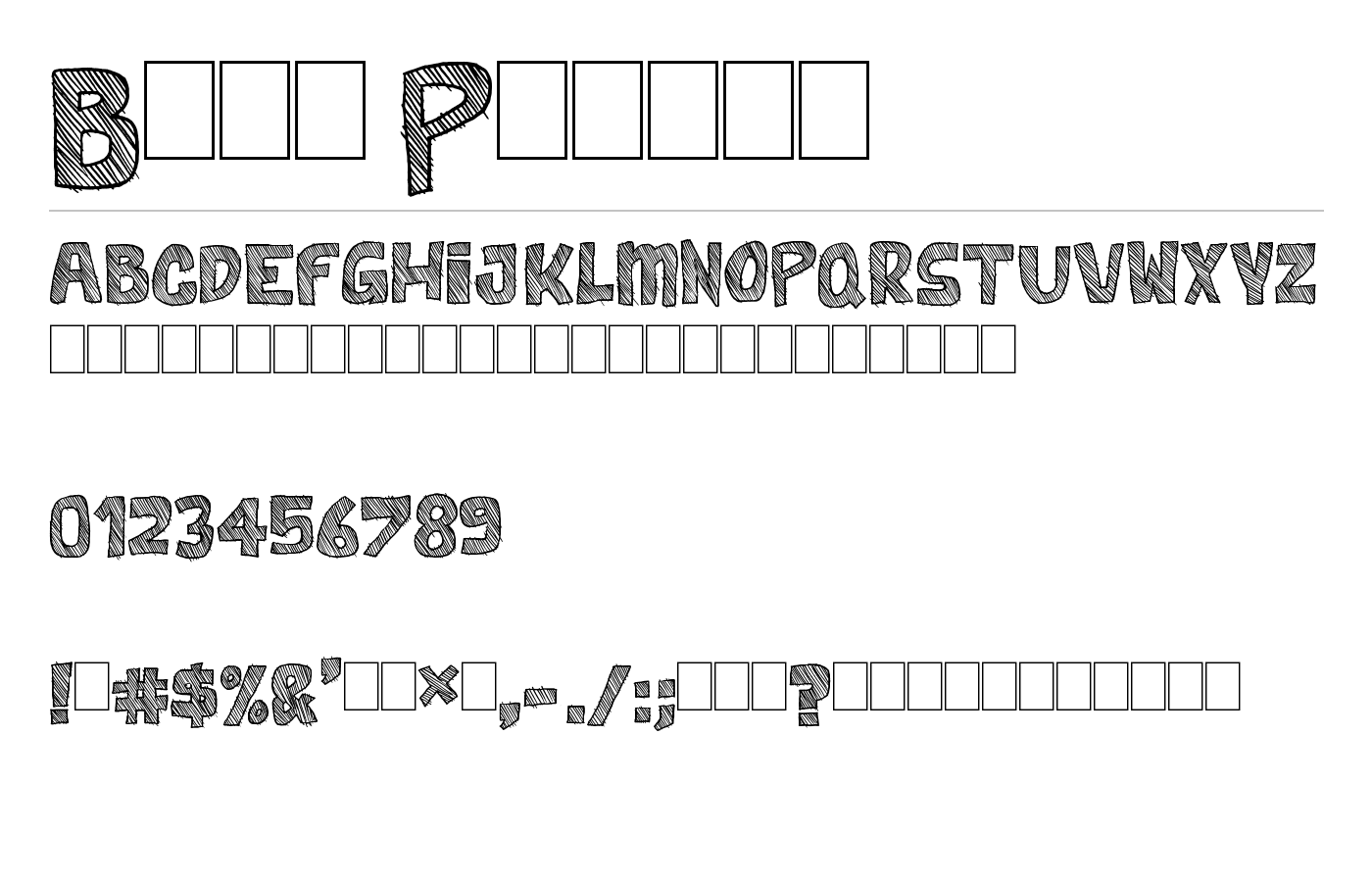
Best Prices Font is a playful, hand-drawn sans serif with bold, slightly condensed letterforms and a textured, sketch-like stroke that adds a casual, approachable feel. Its uppercase-only style and irregular lines make it ideal for fun, eye-catching headlines, posters, or packaging that aim to convey creativity and friendliness. This font works well in informal branding or promotional materials where a lively, personal touch is desired.
Best Prices Font